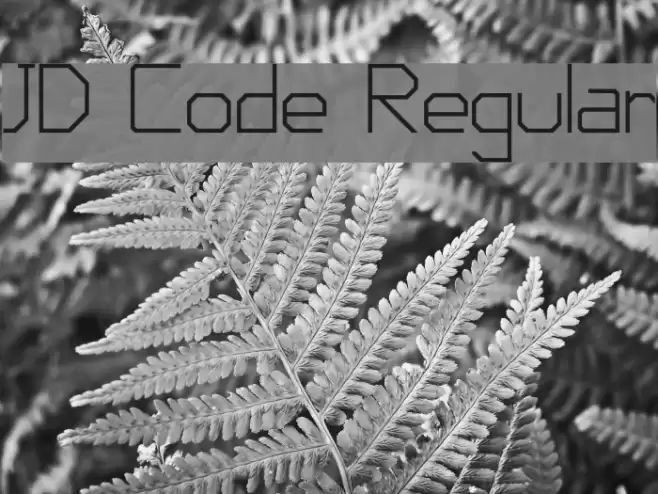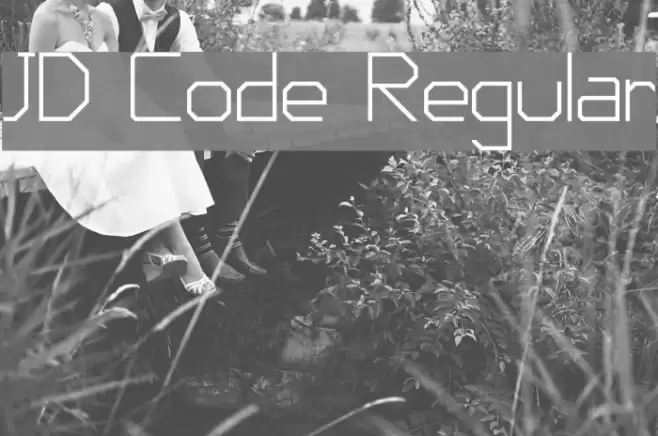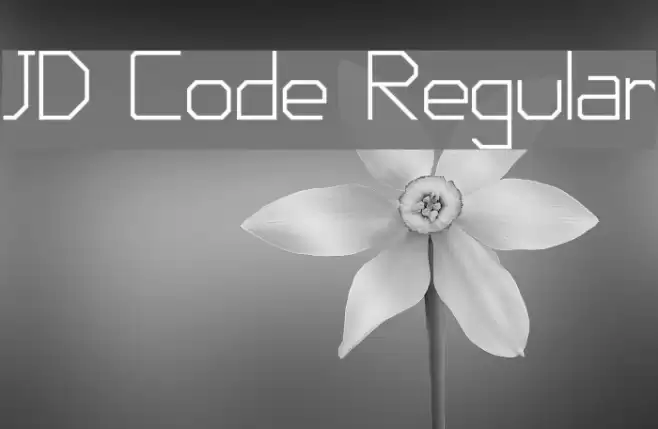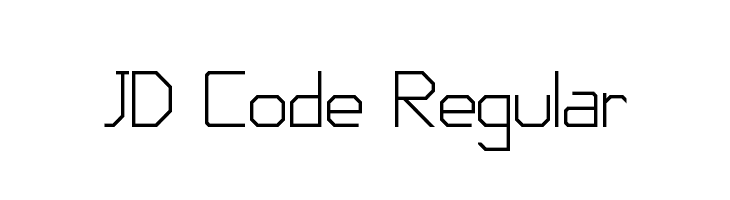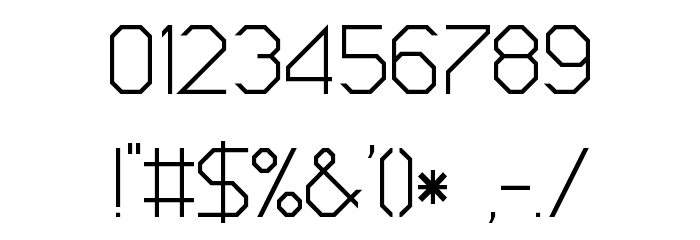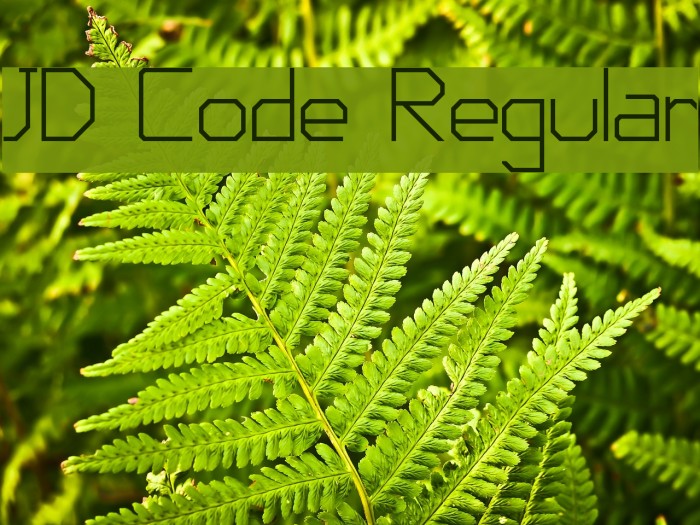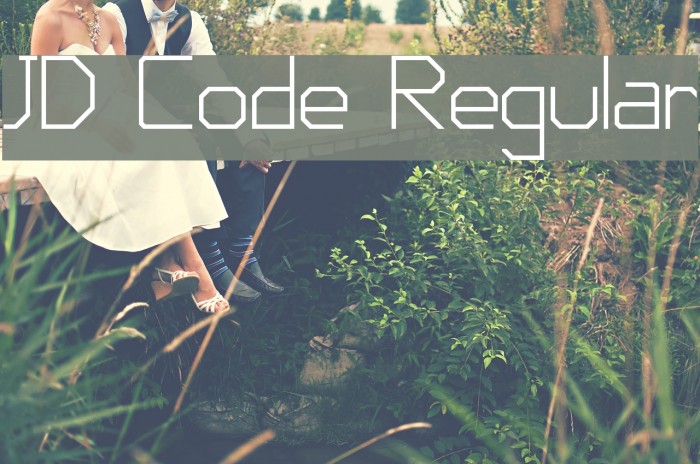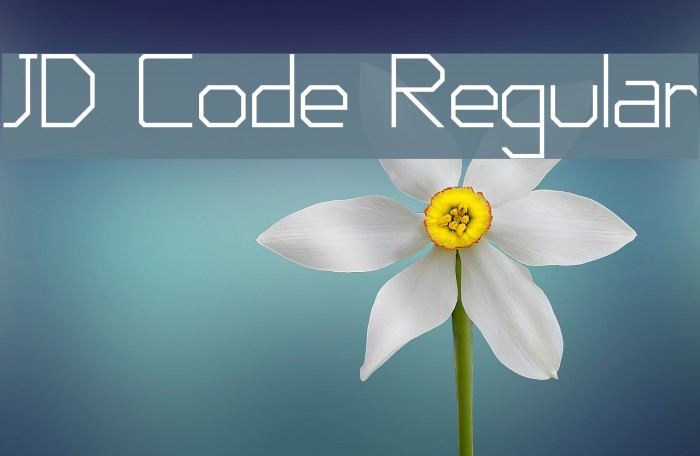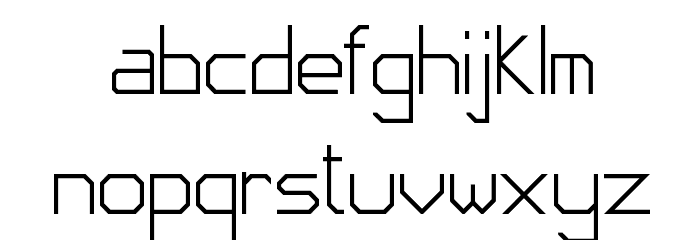
JD Code Regular Font
JD Code Regular Description
This font features a geometric and angular design, characterized by its sharp edges and linear forms. The uppercase letters are distinct with a futuristic and technical appearance, while the lowercase letters maintain a consistent style, offering a cohesive look. The numerals and special characters follow the same geometric pattern, making the font suitable for modern and tech-oriented designs. Its unique structure is both eye-catching and functional, providing a sense of precision and clarity.
A geometric, angular font with a futuristic and technical style from Uncategorized fonts.
- Proposed Projects: Ideal for technology branding, sci-fi themed projects, modern logos, and digital interfaces.
- Use Case: Logos, Headlines, Digital Interfaces